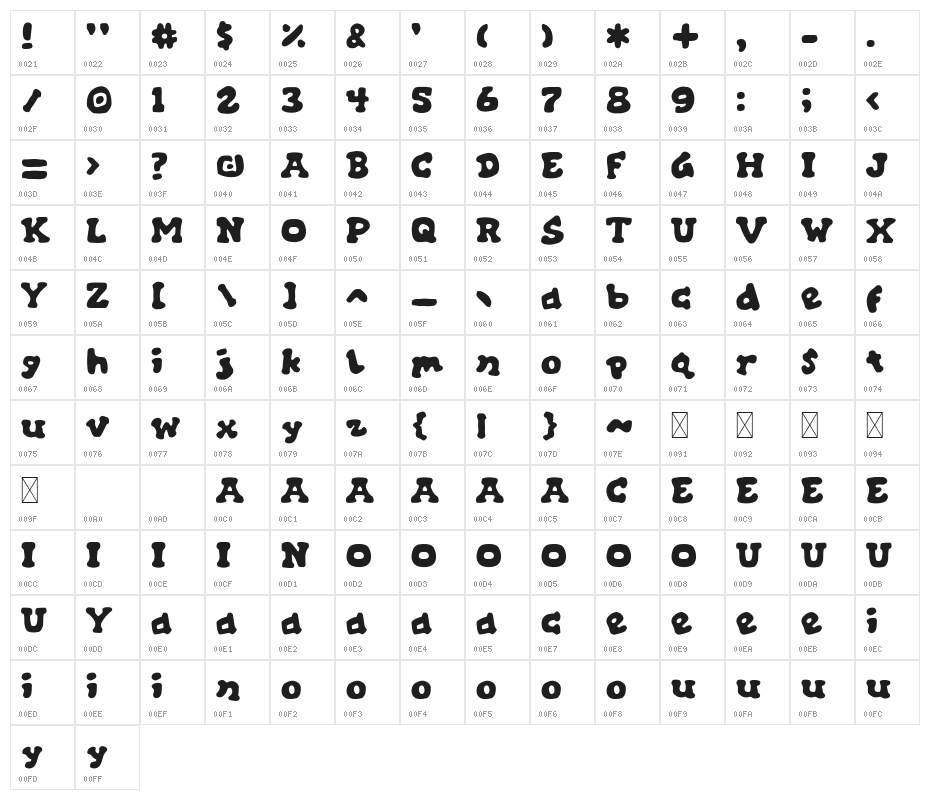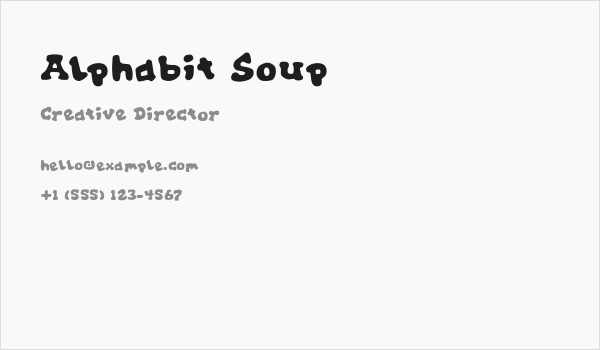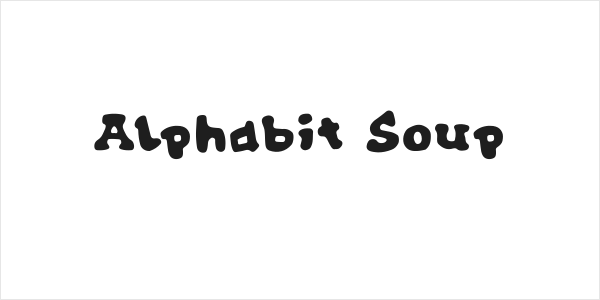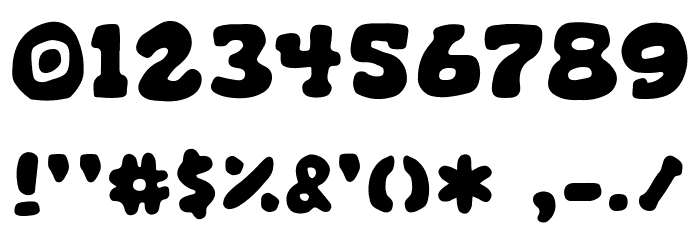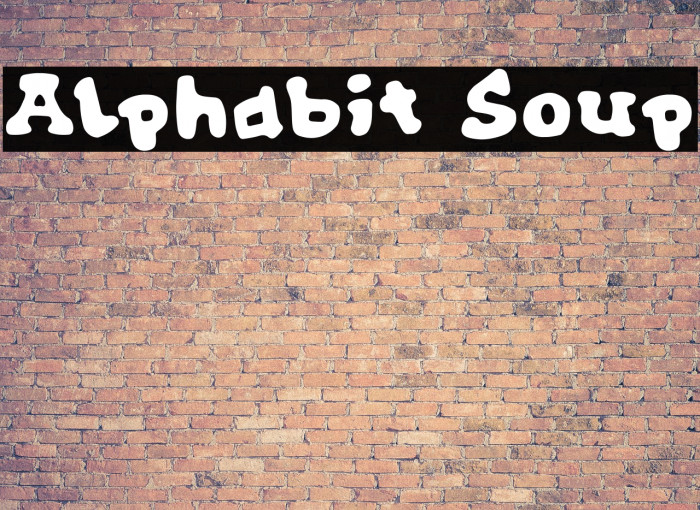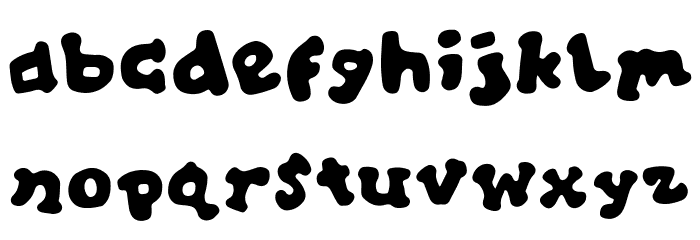
Alphabit Soup Font
Alphabit Soup Description
This playful and bold font features a bubbly, cartoonish style with thick, rounded edges and a whimsical appearance. The characters are highly stylized, with a consistent thickness that gives them a uniform look. The font's design is reminiscent of playful, childlike handwriting, making it ideal for projects that require a fun and informal touch. The letters are well-spaced, ensuring readability while maintaining a lively and energetic feel. The numbers and special characters follow the same playful theme, adding to the font's cohesive design.
| Proposed Projects | Ideal for children's books, playful branding, party invitations, and educational materials. |